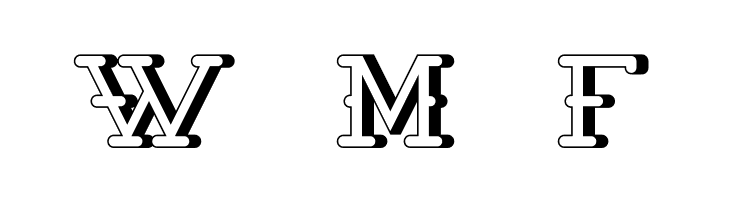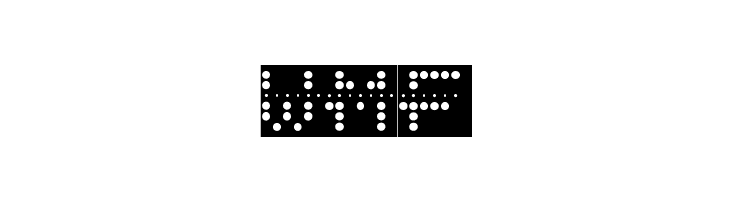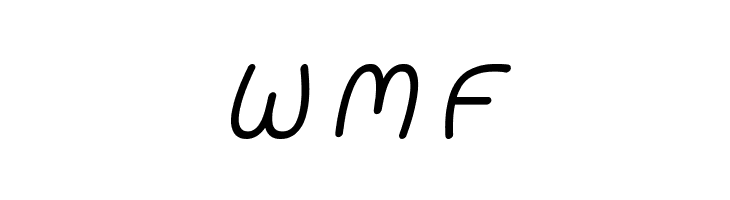
• Battenberg and Custard Italic
( Fonts by Chequered Ink )
A playful, handwritten-style italic font with rounded, smooth strokes.
• Batter Up 3D
( Out Of Step Font Company - outofstepfontco.com )
A bold, 3D font with a vintage sports theme and shadow effect.
• Batter Up Outline
( Out of Step Font Company - Dan Steinbok - outofstepfontco.com )
A bold, outlined font with a vintage sports aesthetic.
• BaudotMurray
A dot matrix style font inspired by early telegraph systems, offering a retro digital look.
• Bavalor
A bold, distressed font with a vintage, textured appearance.
• Baybayin Trial Round
• BAZERD
( Sholeha Anata )
A bold, geometric font with a modern and edgy style.
• BD Lettering Reduced
A lively handwritten font with fluid, dynamic strokes and a playful aesthetic.
• BD Lettering Reduced Black
A bold, handwritten-style font with a playful, brush-lettering appearance.
• BD Lettering Reduced Black
( Fonts by ingoFonts )
A bold, expressive handwritten font with a smooth, brush-like texture.